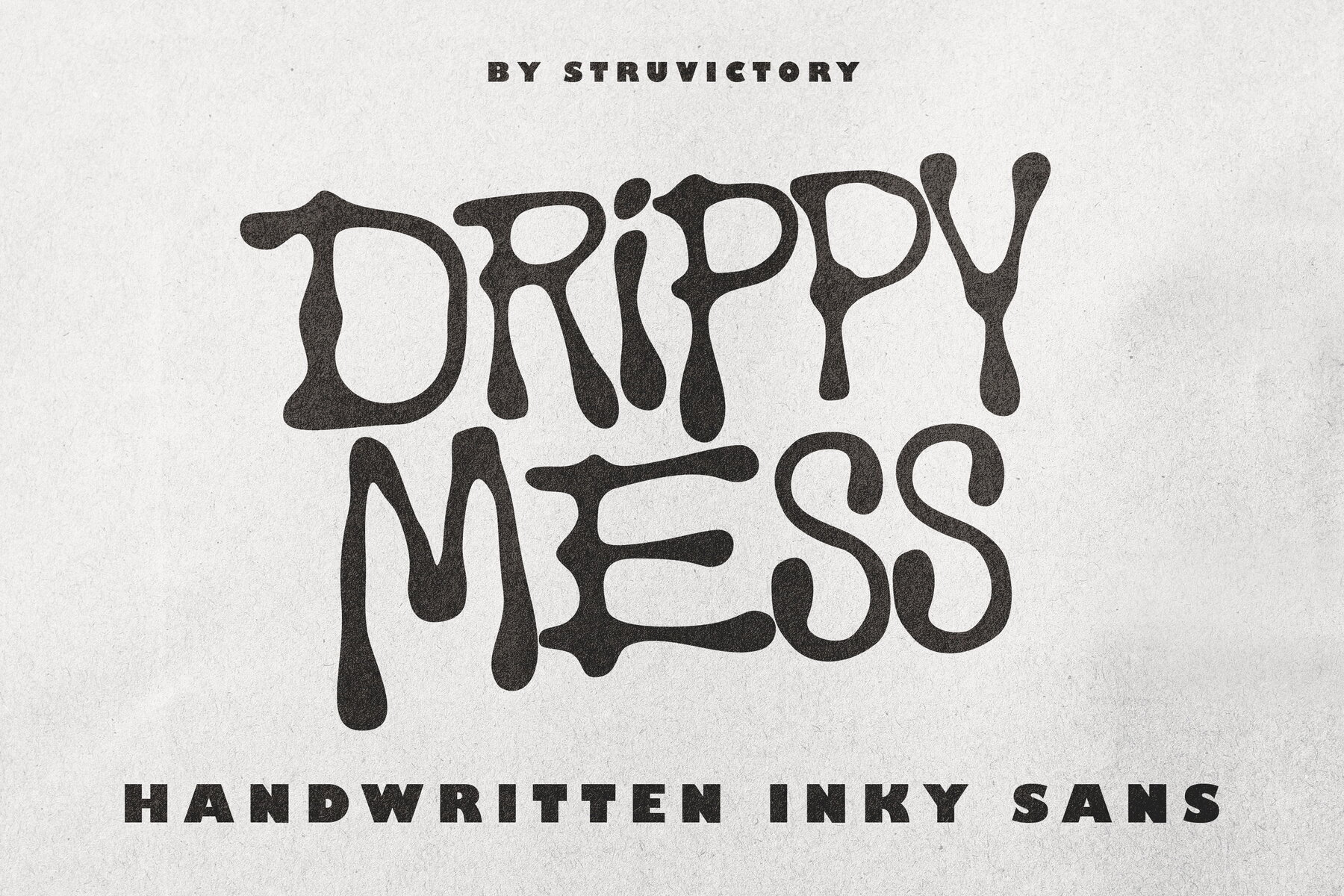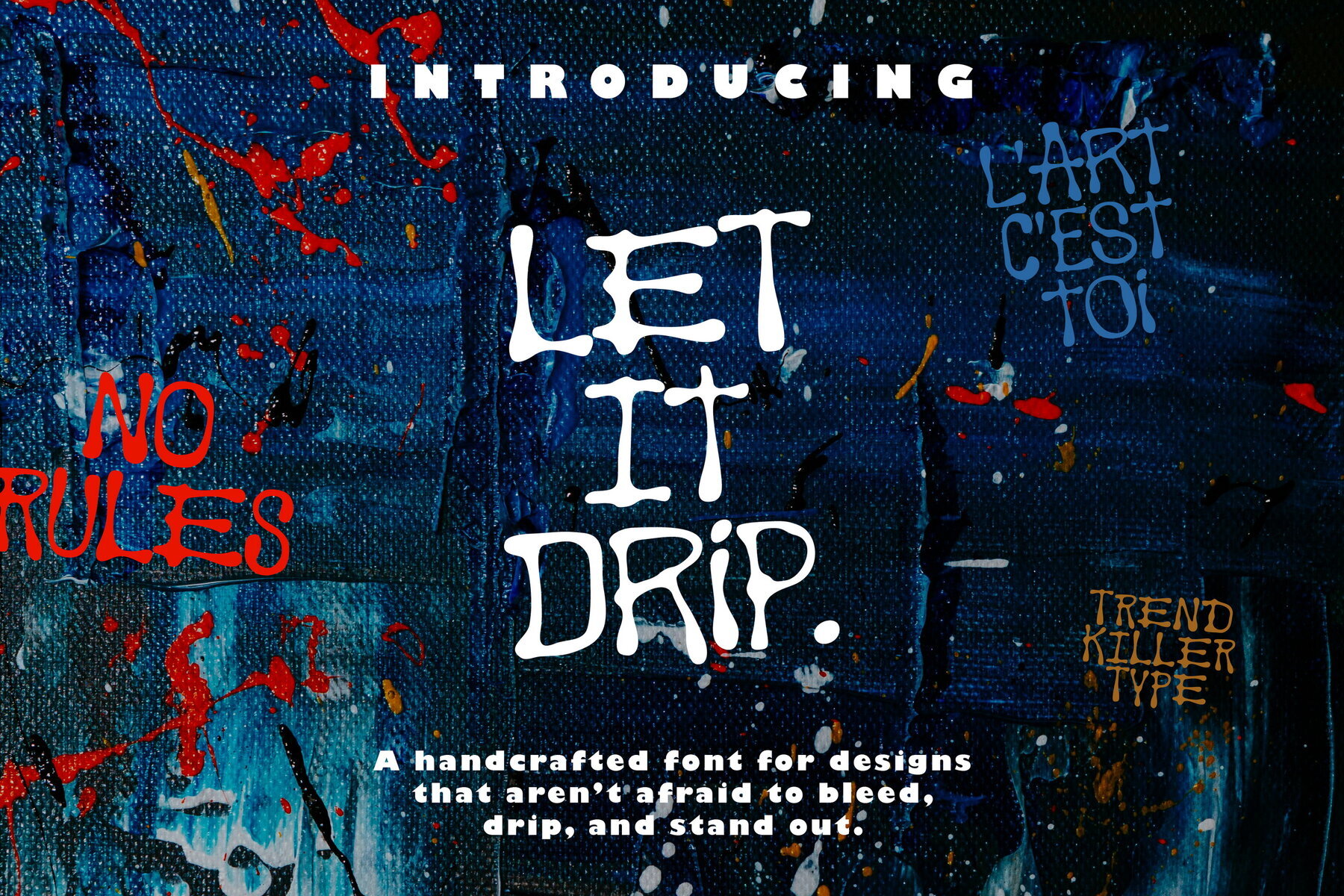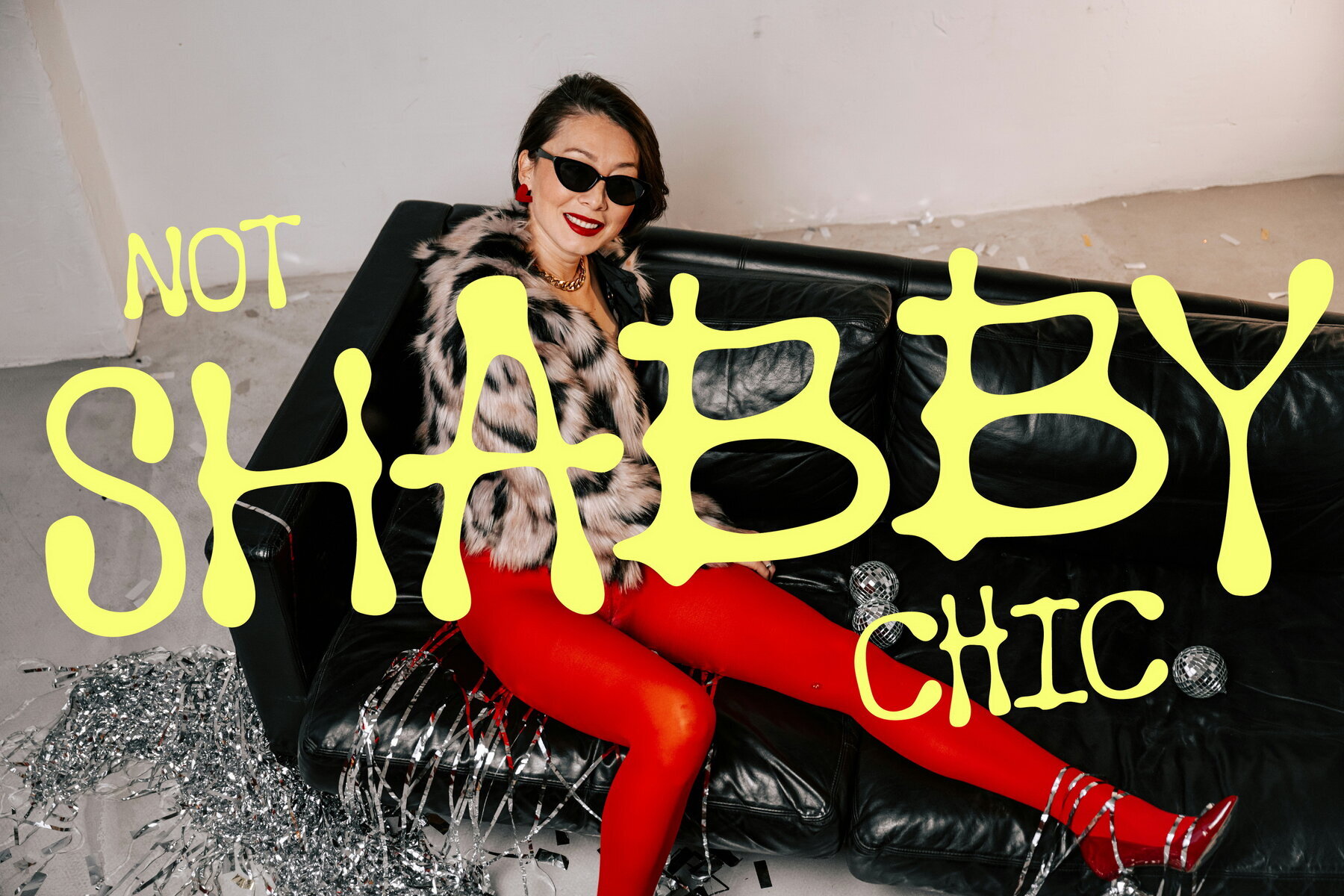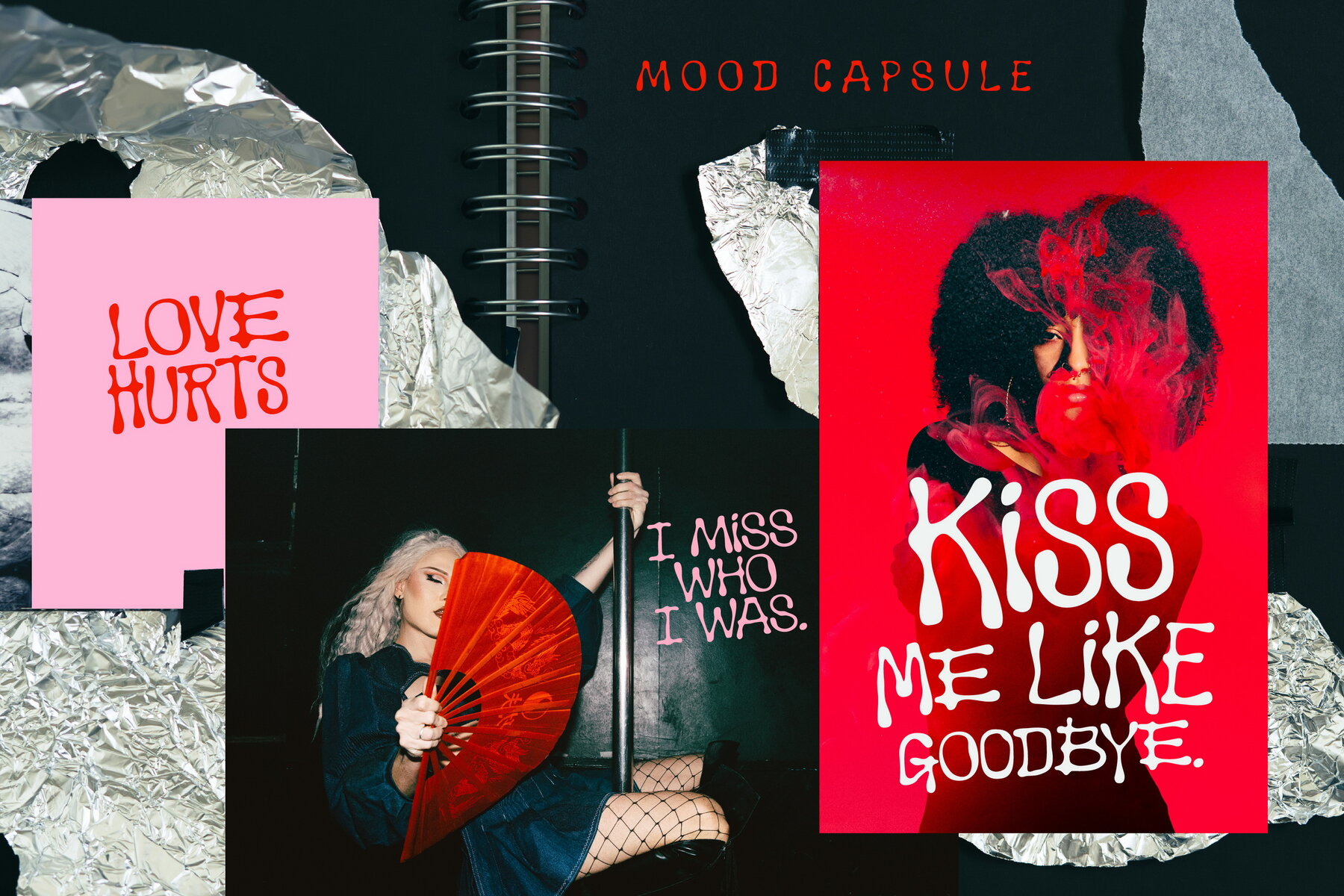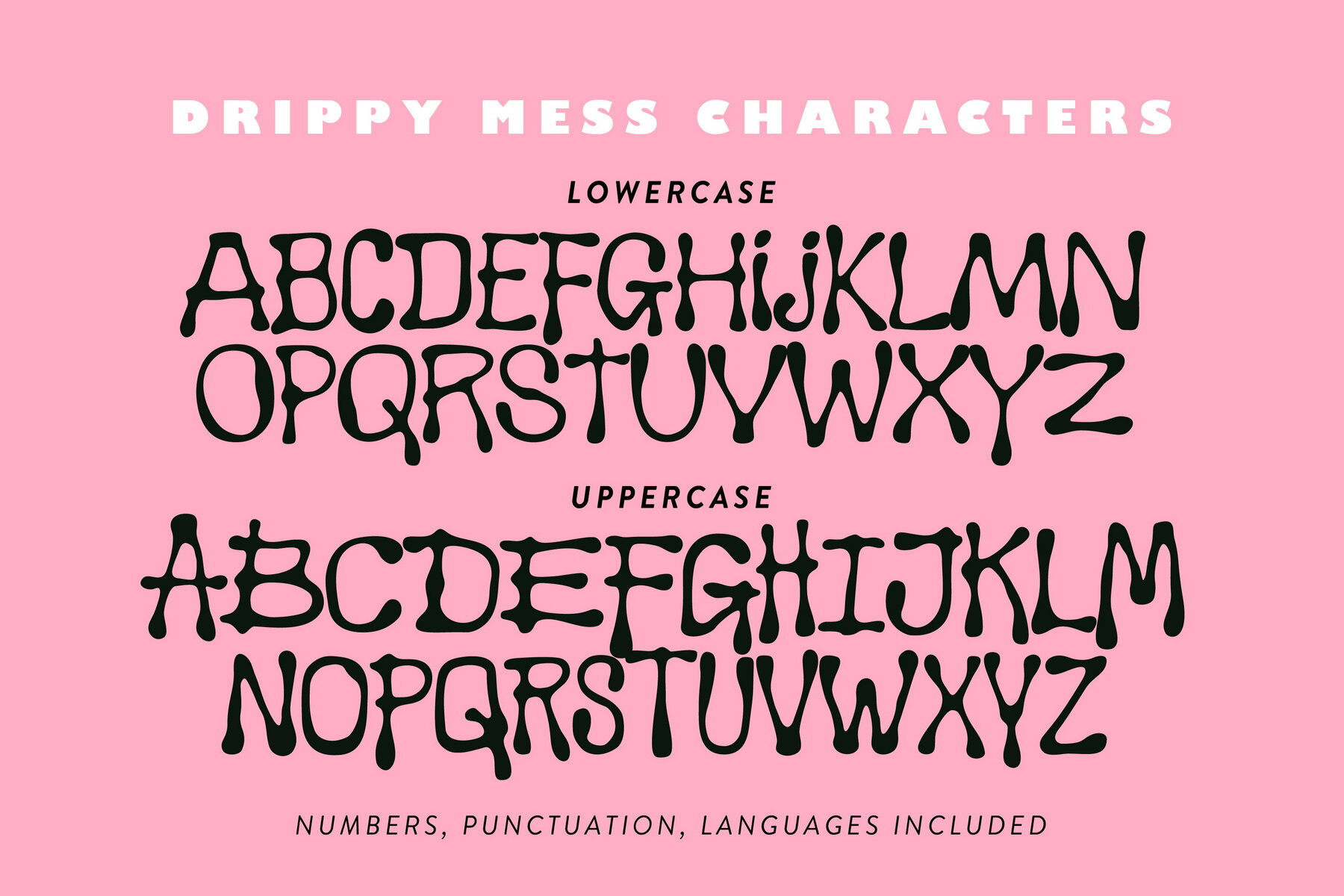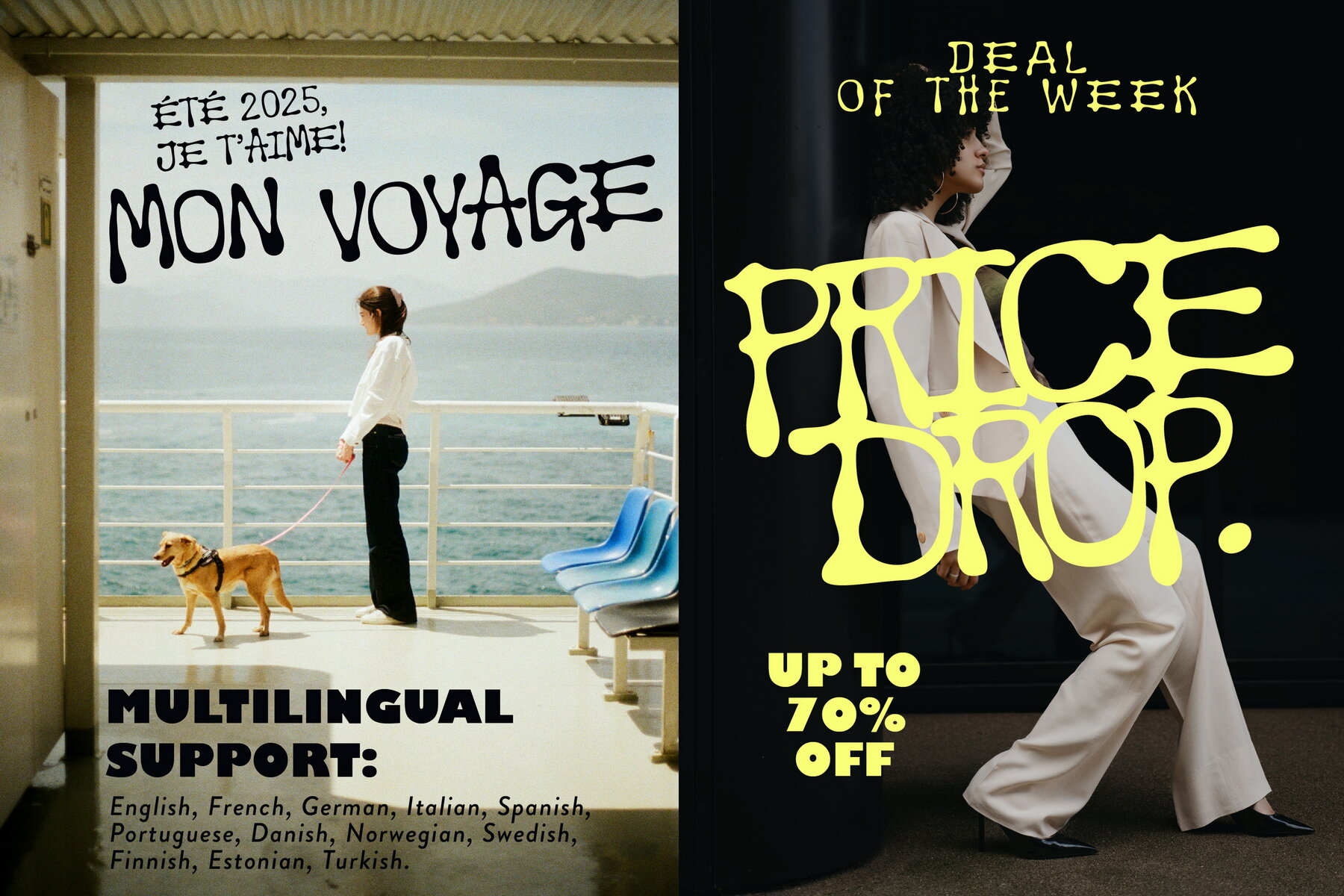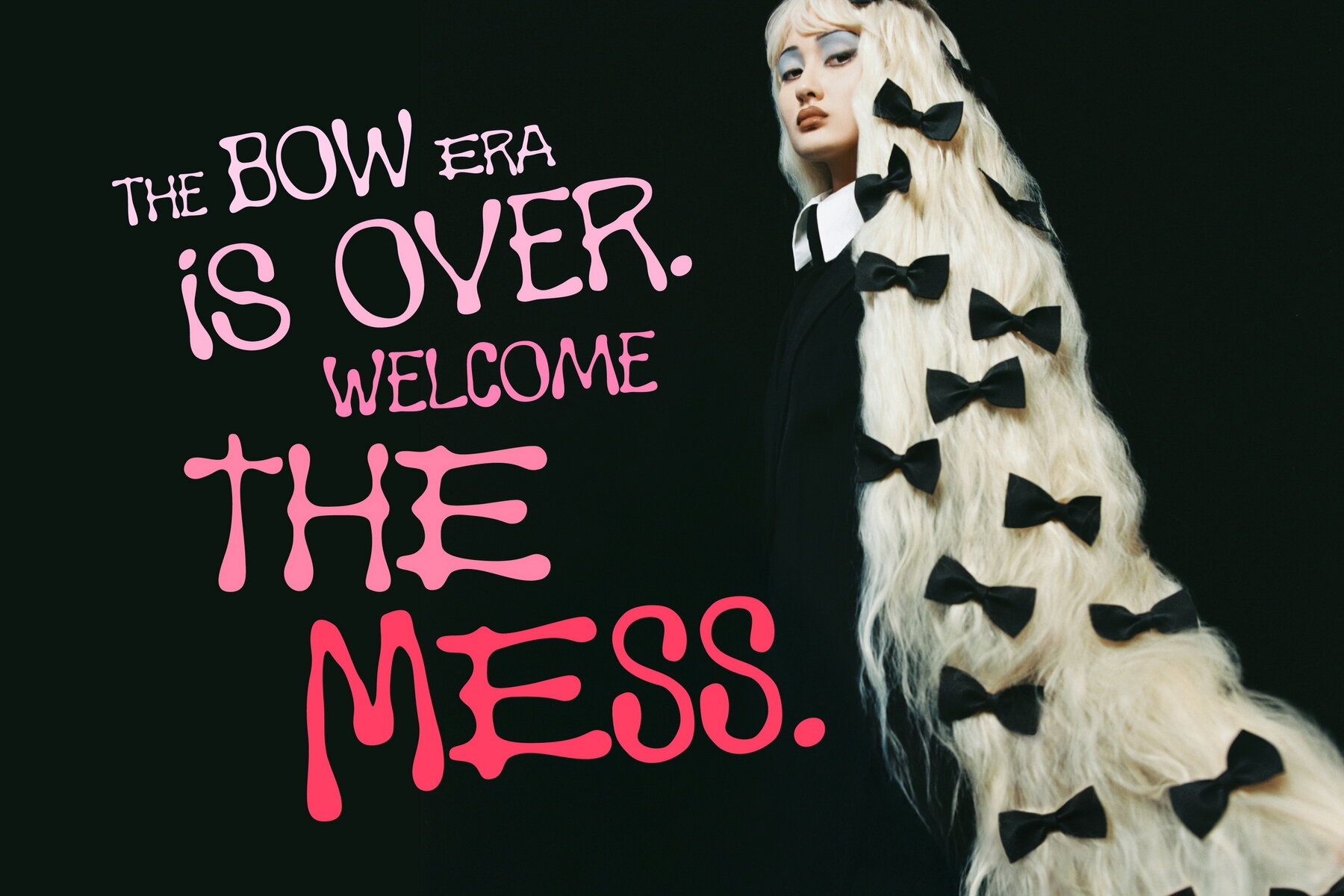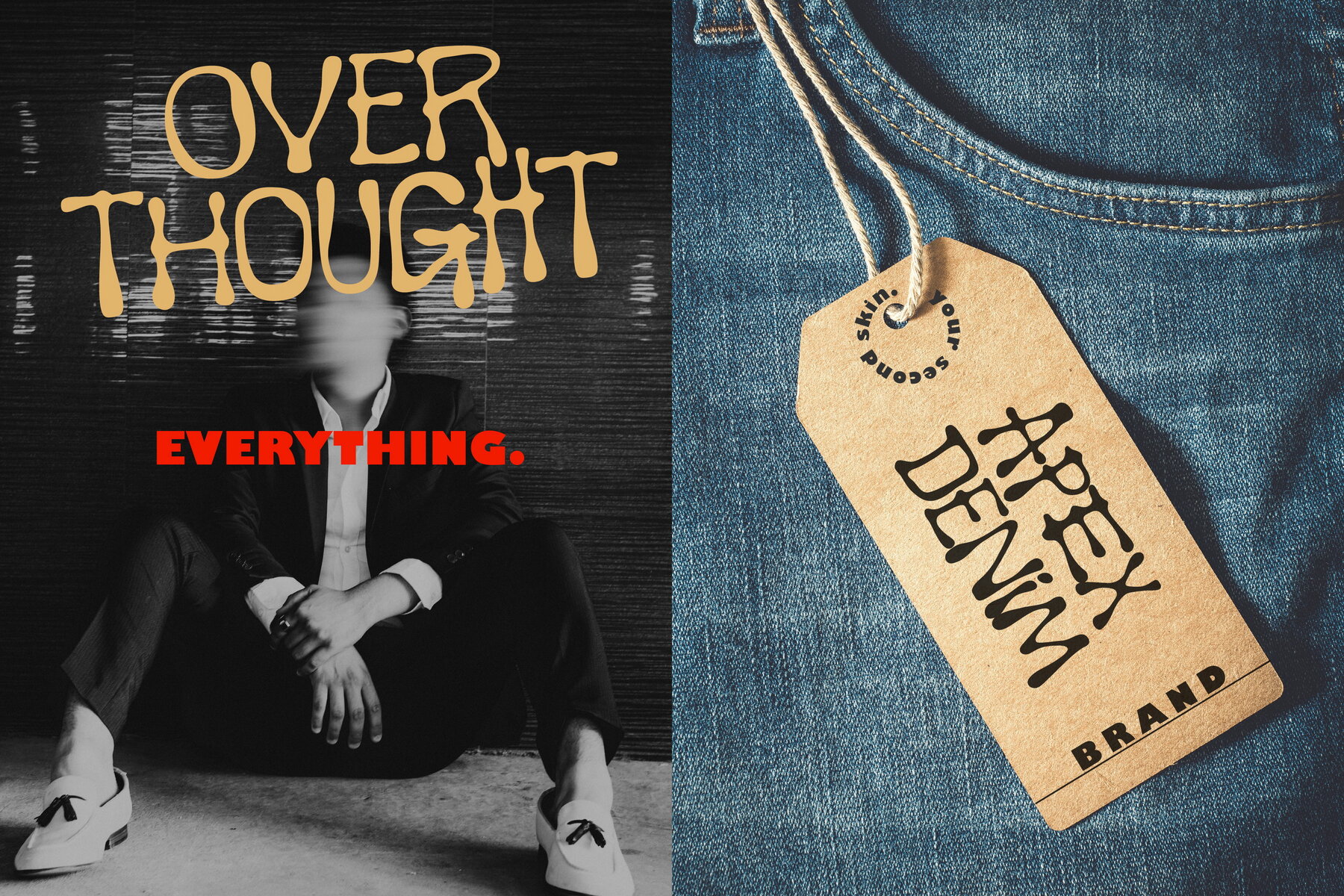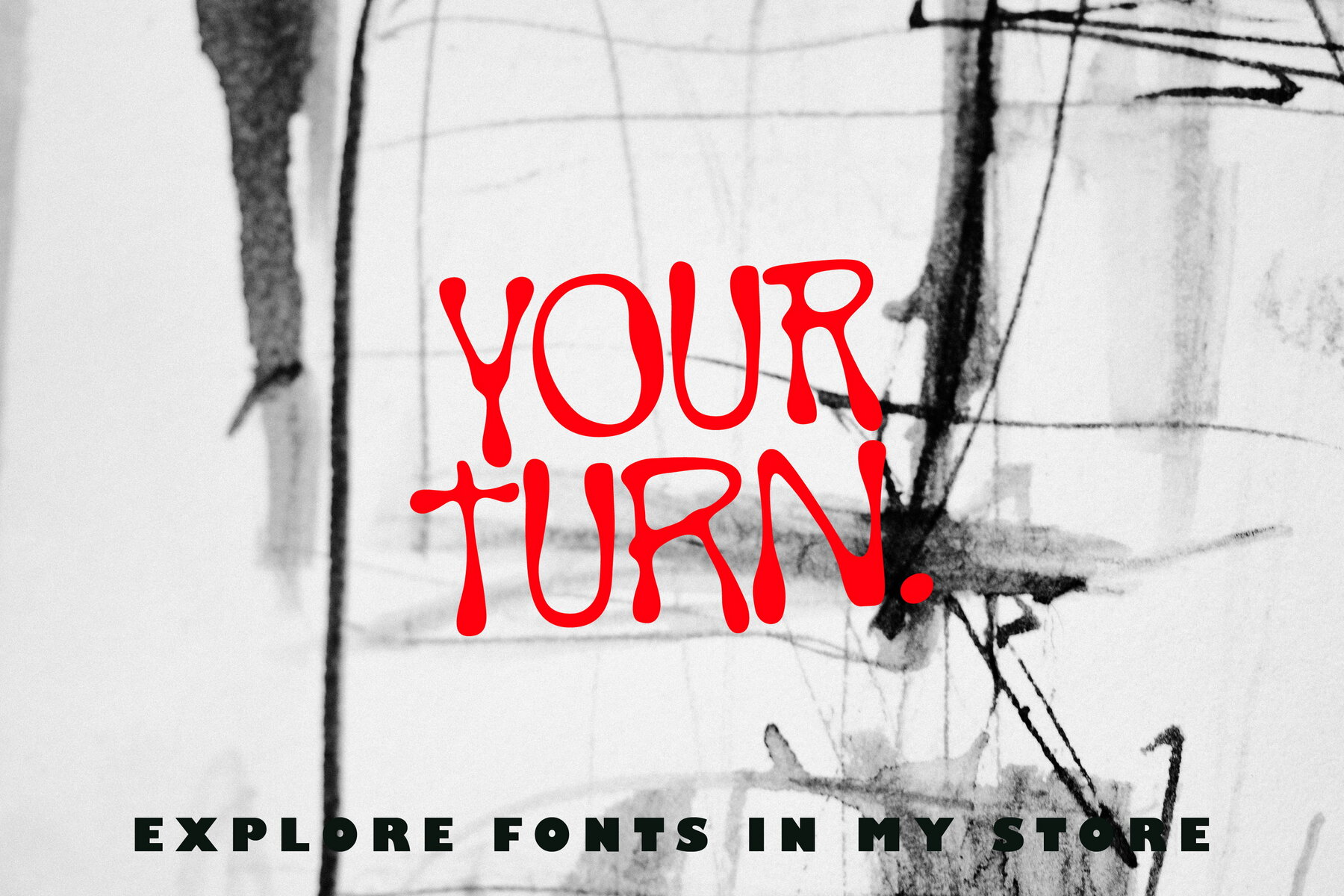
Drippy Mess Font
Drippy Mess Sans
Drippy Mess is a hand-drawn all-caps sans serif font that captures the intensity of street art and graffiti culture. Every letter is shaped by ink-drip endings and gritty textures, echoing the raw surfaces of concrete walls and tattered sketchbooks. This design embraces intentional imperfection, offering a confident, urban feel that is distinctly modern yet approachable. This font sets a dynamic tone for branding projects, merchandise, and packaging—especially those aimed at Gen Z audiences or anyone seeking an authentic, expressive edge. Its bold presence shines on posters, apparel, and digital graphics that demand attention and convey a unique personality. Drippy Mess also supports the most popular Latin-based languages, allowing versatility across global projects.Drippy Mess: Urban Sans Serif with Attitude